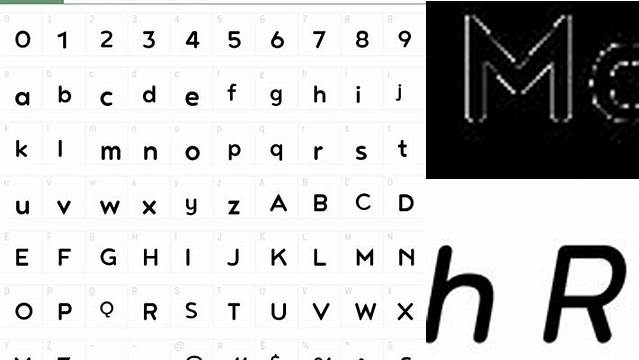
NOYH R Medium Font: An Overview
Alright, before we jump into the NOYH R Medium font free download details, let's chat about what makes this font so awesome. The NOYH R Medium font is a geometric sans-serif, meaning it's clean, modern, and easy on the eyes. Its design is based on geometric shapes, making it look super contemporary. This font is versatile; it works well in headings, body text, and even in logos. Think about it: a clean font can really make your design pop! It is created by the talented designer, and it's gaining popularity because of its legibility and stylish look. It's like a trusty friend that you can always depend on for your design projects. So, if you're looking for a font that's both stylish and functional, the NOYH R Medium font is definitely worth checking out. Trust me, once you start using it, you'll wonder how you ever lived without it.
This font is all about simplicity, which is why it's so popular. It does not overwhelm your reader; it's elegant and clear. It looks good everywhere, like on your website, in your marketing materials, or even in print. The font's neutrality is its strength. It's not overly flashy, which makes your message the star. The creators made it thinking about how people would use it today. With this NOYH R Medium font, your work will always look sharp, no matter what you're making. Using the NOYH R Medium font allows your audience to get the message while also showing off your understanding of good design. If you're trying to create a brand image, this font will provide a base for your brand. You can also show your design in a sophisticated way using this font. The font’s design is modern and will help you in all types of projects. With its clean lines and balanced letterforms, the NOYH R Medium font elevates the overall aesthetic, making your design stand out. The versatility of the NOYH R Medium font makes it an essential resource for designers of all types.
Key Features and Characteristics of the NOYH R Medium Font
Let's explore some key features and characteristics of the NOYH R Medium font that make it a great choice for your projects. The font typically includes a medium weight, offering a balance between readability and visual impact. This makes it perfect for various uses, from body text to headlines. Each character is crafted with geometric precision, giving the font a modern and clean appearance. It is designed with careful attention to detail, ensuring each letter is balanced and harmonious. The font's overall aesthetic is sleek and contemporary, helping your designs feel fresh and up-to-date. The NOYH R Medium font is extremely versatile and can be used in various design contexts. You can use it in branding projects, web design, and print materials. Its flexibility allows it to fit seamlessly into various design applications. The font is designed to be highly legible, even at small sizes, which makes it suitable for extensive text. The characters are clear and easily distinguished, improving the overall user experience. The NOYH R Medium font often includes multiple weights and styles, providing additional creative flexibility. This variety enables you to choose the perfect style. You can create visual interest and convey different tones and moods. The font is often designed with excellent kerning and spacing. This ensures that the text appears balanced and visually appealing. Good kerning reduces visual clutter and improves readability. The font's design helps it to be compatible with a wide range of design tools and software. This compatibility makes it easy to implement into your workflow. The NOYH R Medium font is an excellent choice for various design projects.
Using the NOYH R Medium Font in Your Designs
Now that you've got the NOYH R Medium font installed, let's talk about how to make the most of it in your designs! This font is incredibly versatile. It works great for headlines, body text, and even logos. Start by choosing the right weight for your project. The medium weight is generally a great choice for headings and subheadings. For body text, you might want to consider a slightly lighter weight to improve readability. When using the NOYH R Medium font, pay attention to the kerning and spacing. Make sure the letters are well-spaced and don't appear too cramped or too far apart. This can affect your design's overall visual appeal. You can use this font in various design applications, like Adobe Photoshop, Illustrator, and Canva. It’s easy to integrate. You can use it for everything from websites to print materials. Experiment with different font sizes and colors to see what looks best. Try using the font on a variety of backgrounds. It allows you to create a visually engaging and professional appearance. Use the font to create a cohesive and consistent design. Ensure your branding materials match. Remember, the key to using the NOYH R Medium font is to keep it simple and clean. Let the font's inherent elegance shine. If you incorporate a good design plan, your work will look great. With a little practice, you'll be creating stunning designs in no time.
Best Practices and Design Tips
To use the NOYH R Medium font effectively, keep these best practices and design tips in mind. Firstly, understand the context of your design. Is it for a website, a poster, or a logo? This will help you determine the best use of the font. For headings, use the medium weight. For body text, consider a lighter weight for readability. Pair the NOYH R Medium font with other fonts. Ensure that the fonts complement each other without clashing. Experiment with different combinations to find what works best for your project. Pay close attention to the font size and scale. Ensure that the font is large enough to be legible and easy to read. Always consider the background color and contrast. Ensure that the font contrasts well with the background. This helps improve readability. Make sure the font is easy to read at different sizes. Test your design on different devices and screens to make sure it looks good everywhere. Ensure that the spacing and kerning are visually pleasing. This can significantly impact the overall look and feel of your design. Try to keep the design clean and minimalist. The NOYH R Medium font works well with clean layouts. Experiment with different layouts and designs to make the most of it. Finally, gather feedback from others. Ask for opinions from your friends. This will help you improve your design.
Final Thoughts and Recommendations